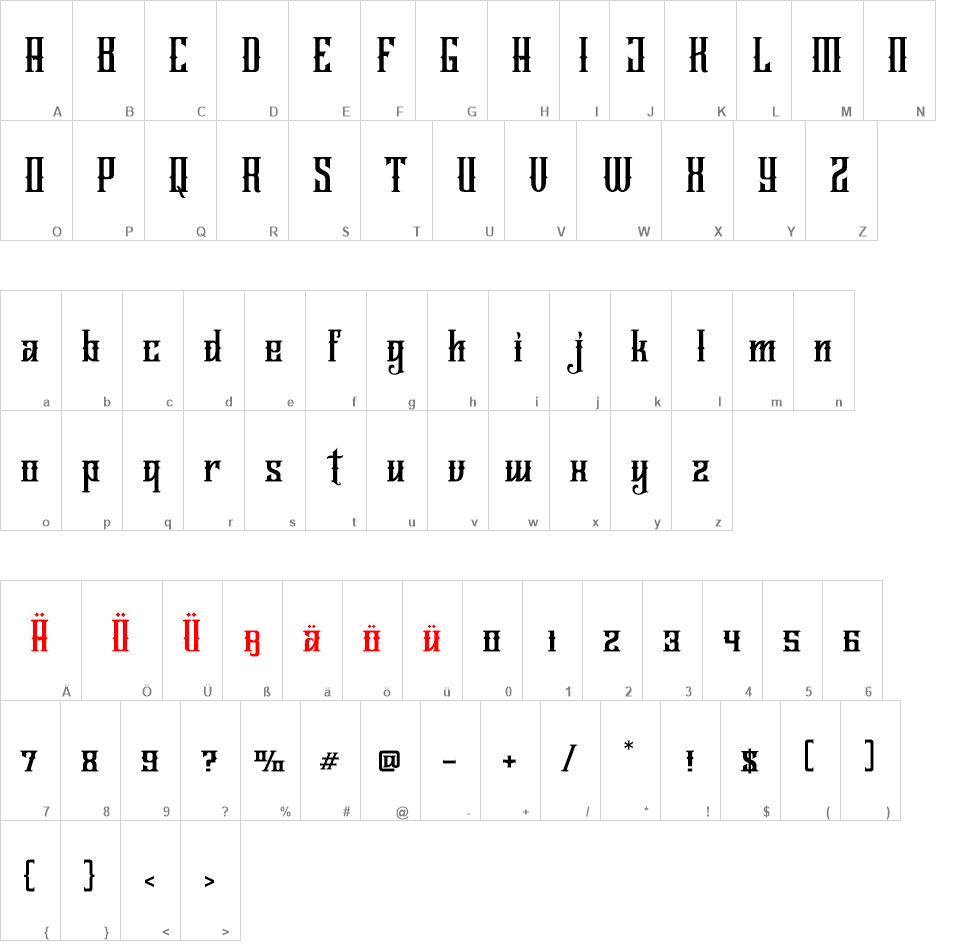
Jailetter
Jailetter font
Jailetter
Jailetter is a font gothic is made by hand, inspired by classic labels. So much inspiration as you access it. All benefits you will feel when you start to create works with Jailetter fonts.